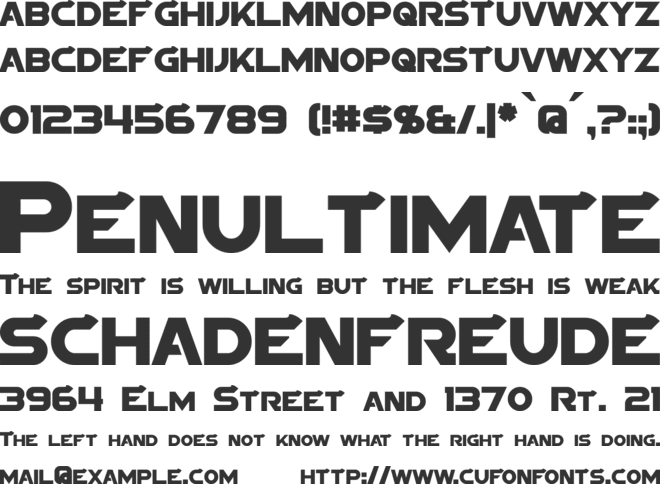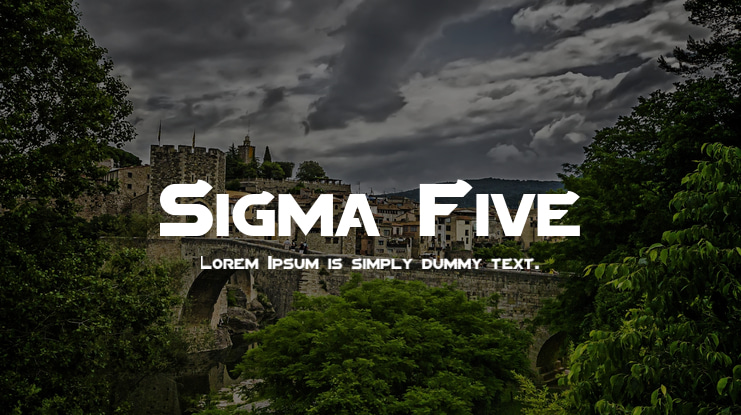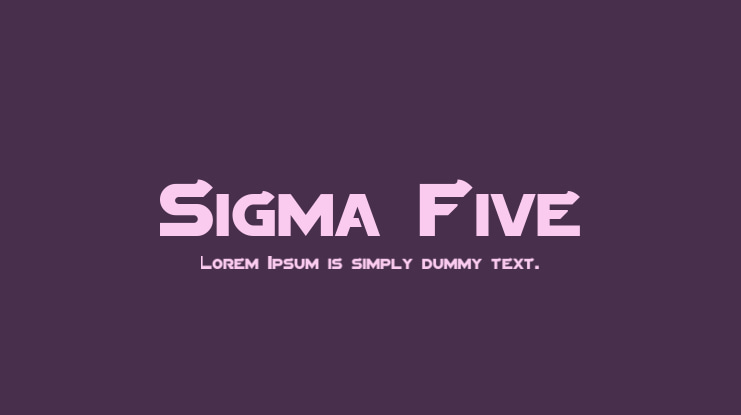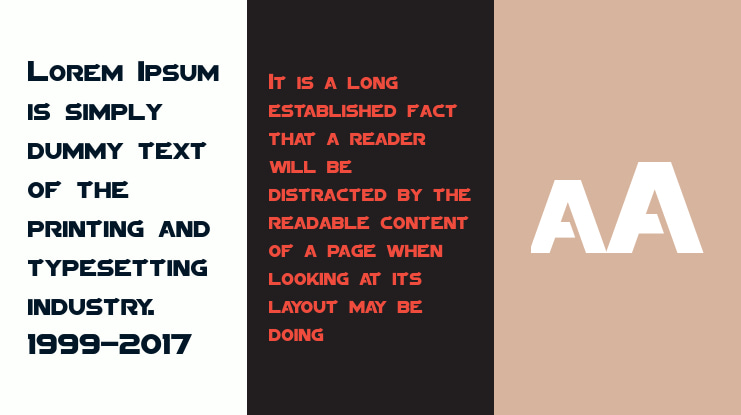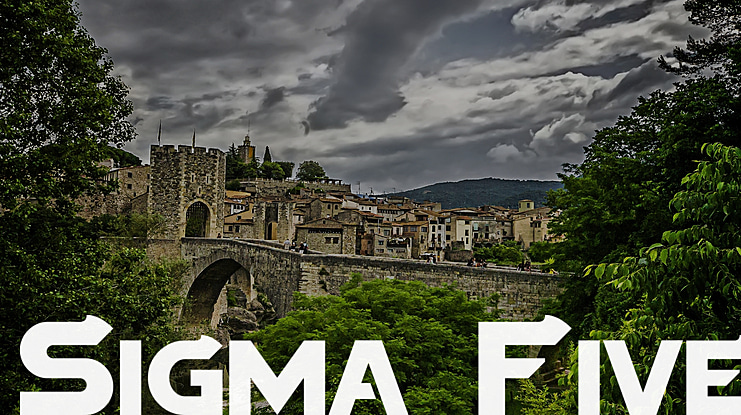
Sigma Five Font Family
Sigma Five is a collection of fonts is a bold, heavy face based on science-fiction lettering made famous by Star Wars and used in numerous franchises since. Includes a “regular” face (based on the Beast Machines sub-logo from Hasbro), “sans” without flourishes, and “Marquee” which is based more heavily on the original Star Wars logo. Includes regular, bold, italic, and bold-italic for each face. All faces include full alpha-numerics, extended punctuation, euro.